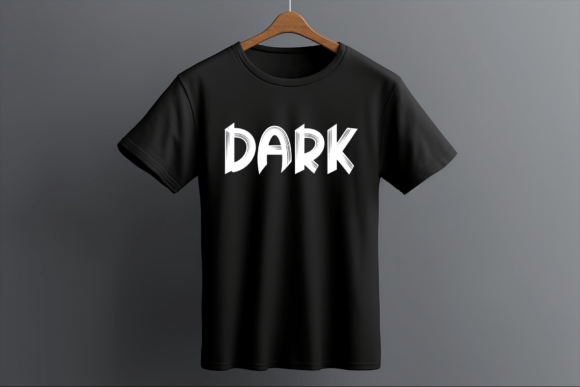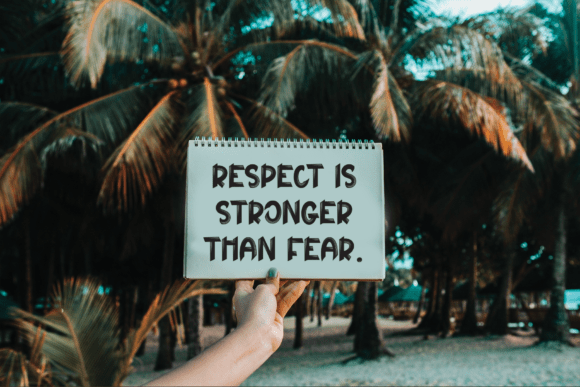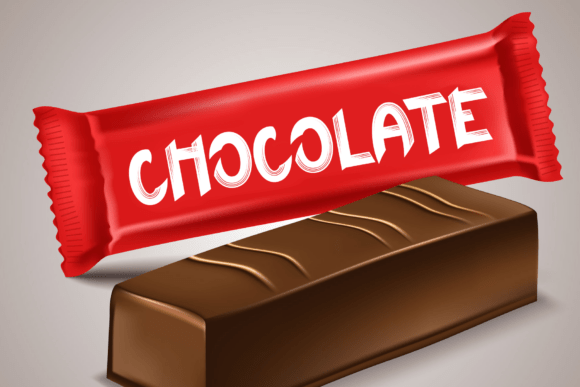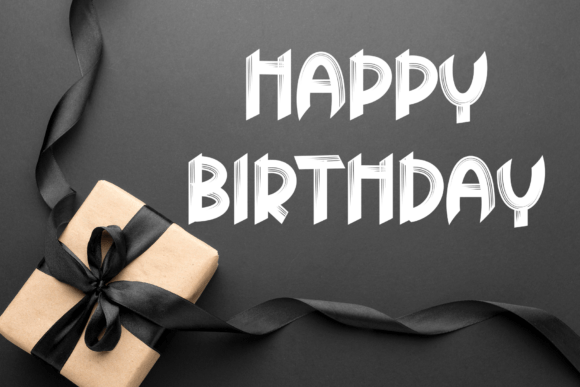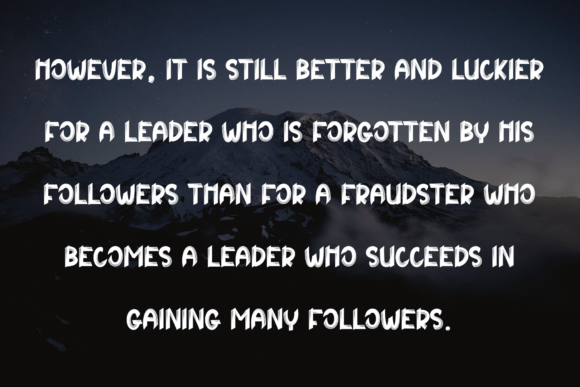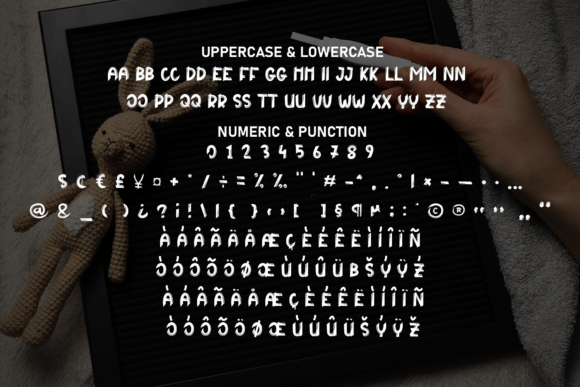
Baby Planner Font: Elevate Your Designs with a Touch of Elegance
Are you a designer, crafter, or DIY enthusiast looking for a unique and creative way to add a personal touch to your projects? Look no further than the Baby Planner Font, a special and creative product designed to give you an extraordinary experience. This stunning font is perfect for a wide range of applications, from wall displays and wedding invitations to social media post logos, advertisements, product packaging, and more.
What Makes Baby Planner Font So Special?
The Baby Planner Font is a beautifully crafted font that boasts a range of features that set it apart from other fonts on the market. With its latest style letters, this font is perfect for anyone looking to add a touch of elegance and sophistication to their designs. Whether you’re working on a wedding invitation, a product label, or a social media post, this font is sure to make your project stand out.
One of the best things about the Baby Planner Font is its versatility. This font can be used for a wide range of design projects, including:
- Wall displays and signage
- Social media post logos and graphics
- Advertisements and marketing materials
- Product packaging and labeling
- Product designs and branding
- Photography and watermarking
- Invitations and stationery
Why Choose Baby Planner Font?
So why choose the Baby Planner Font over other fonts on the market? Here are just a few reasons why this font stands out:
- Unique and creative design that’s sure to make your projects stand out
- Versatile and compatible with a wide range of design software and applications
- Elegant and sophisticated style that’s perfect for a range of design projects
Tips and Tricks for Using Baby Planner Font
To get the most out of the Baby Planner Font, here are a few tips and tricks to keep in mind:
- Experiment with different font sizes and styles to add visual interest to your designs
- Pair the Baby Planner Font with other fonts and design elements to create a unique and cohesive look
- Use the font for both digital and print projects, from social media graphics to wedding invitations and more
- Take advantage of the font’s compatibility with a range of design software and applications